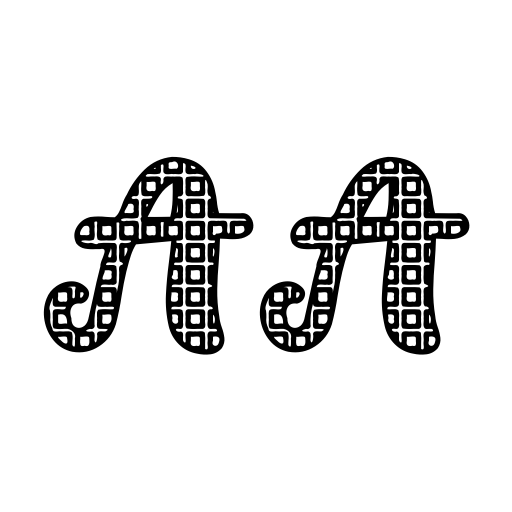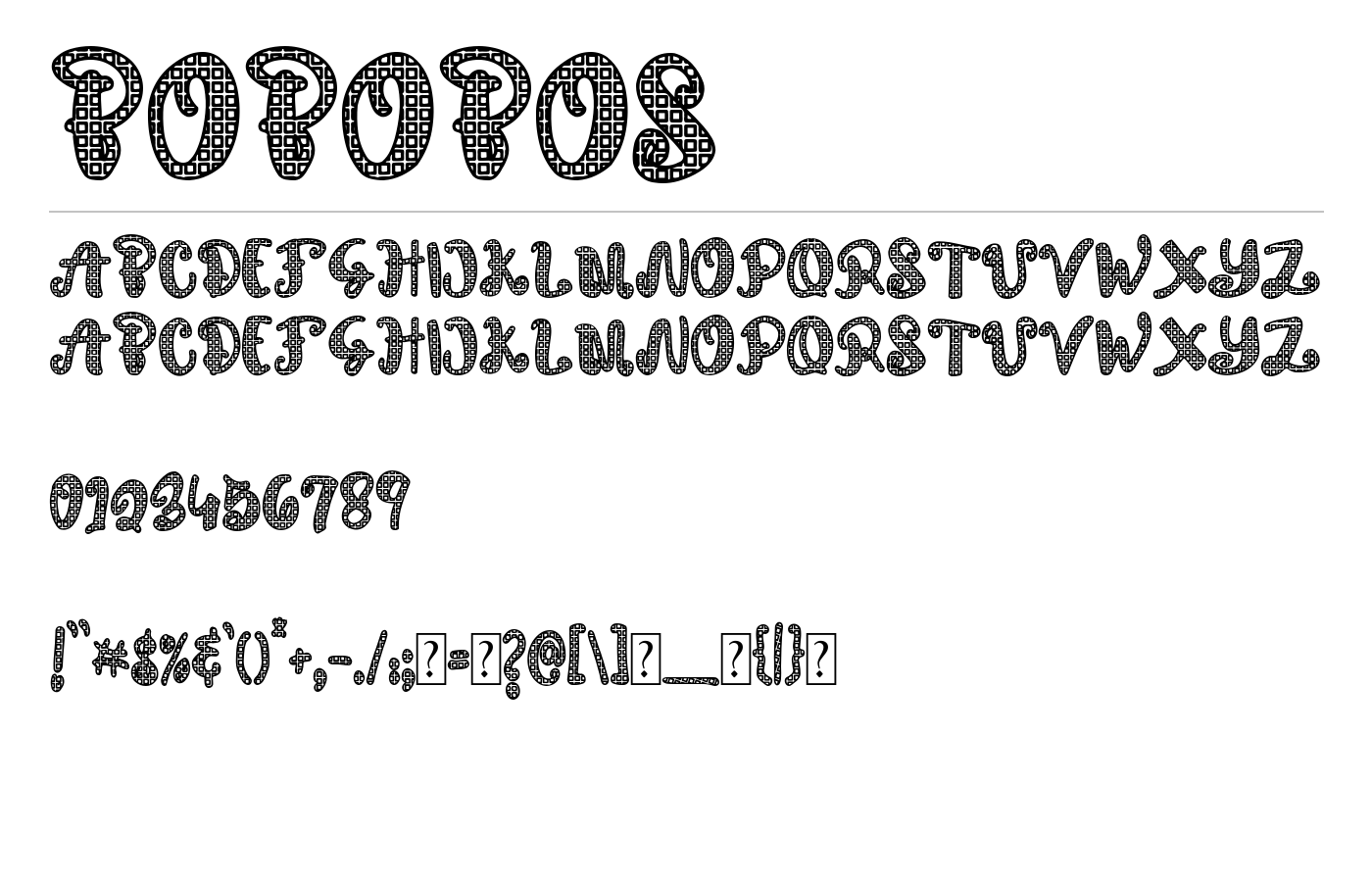
Bobobos is a playful, decorative display font with bold, rounded letterforms filled with a distinctive grid-like pattern. Its whimsical style and unique texture make it perfect for creative branding, children’s products, and eye-catching headlines where a fun, energetic vibe is desired. This font stands out best in large sizes, adding a lively and artistic touch to posters, packaging, and logos.
Bobobos Font
About Bobobos Font